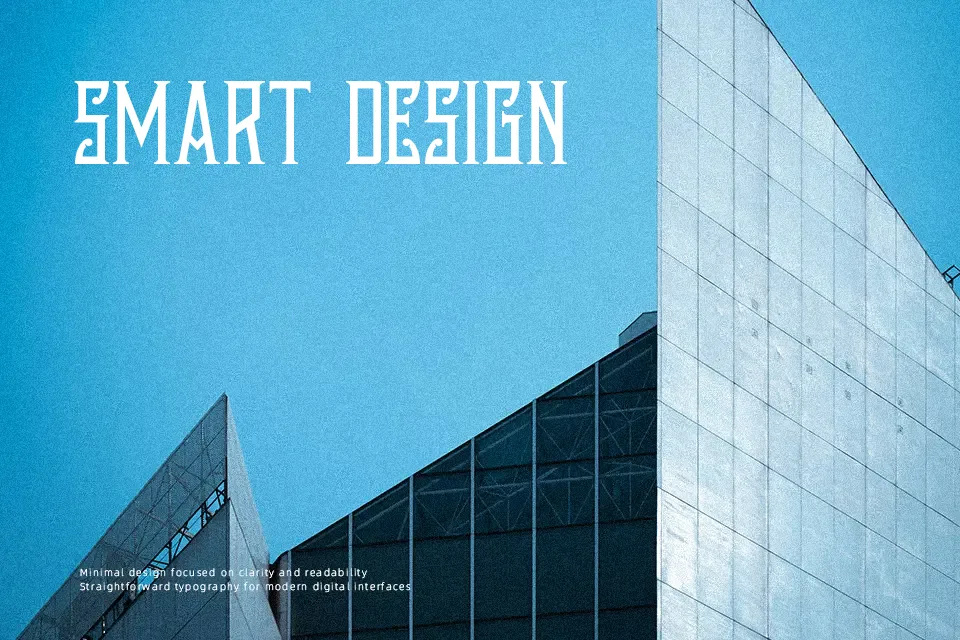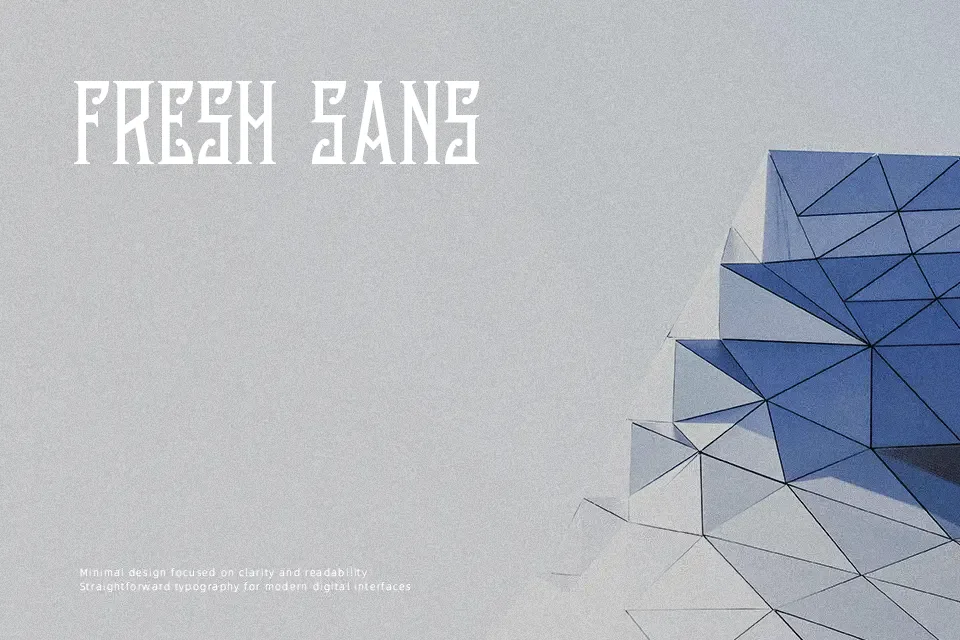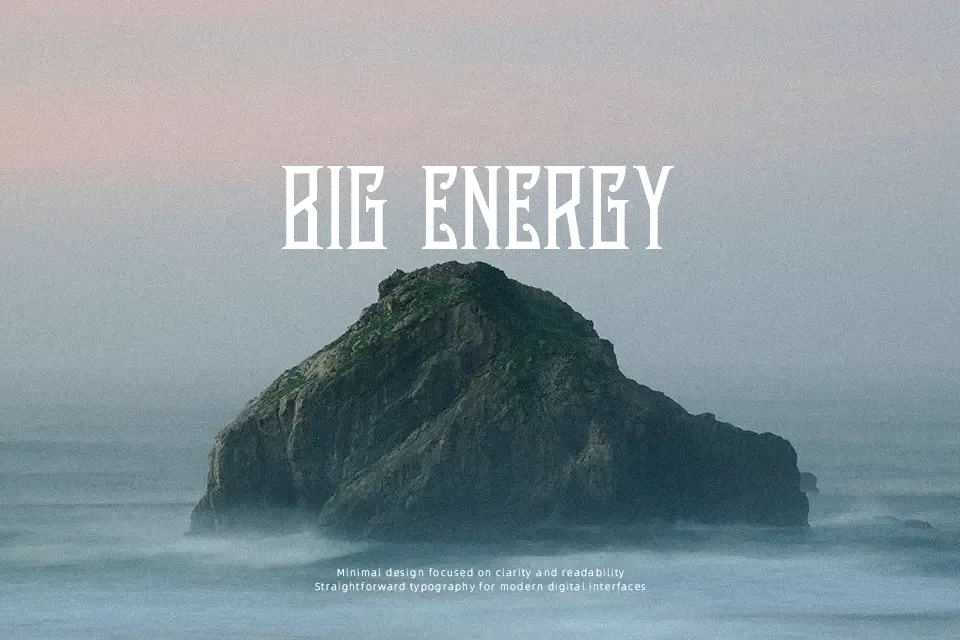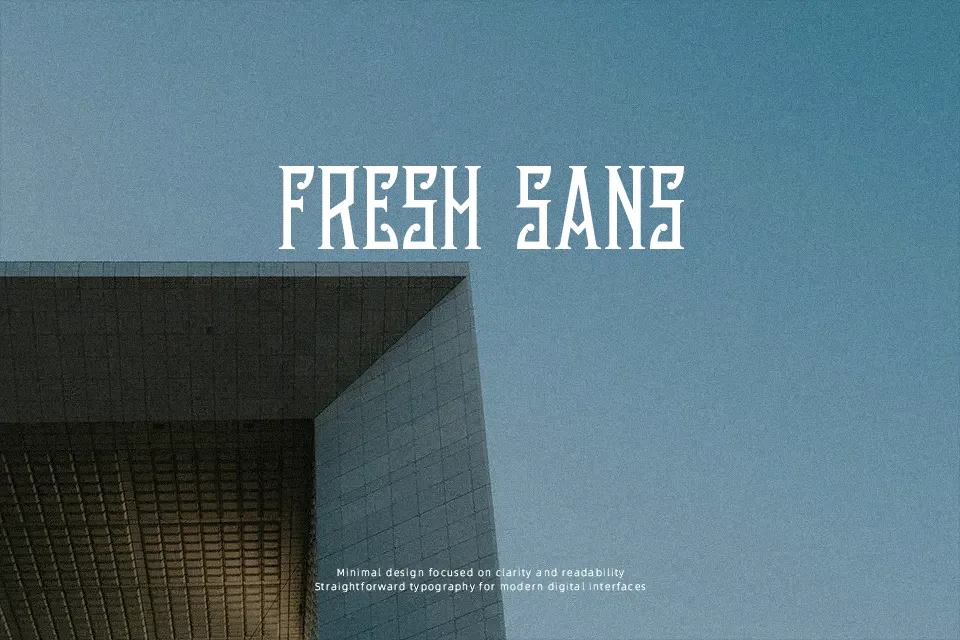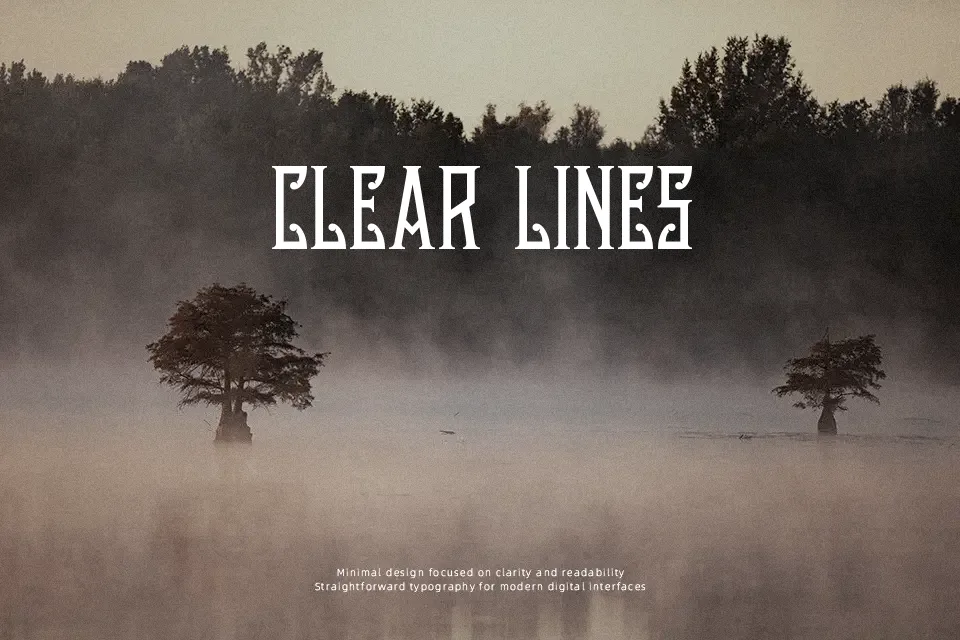
Austin Nichols Font
Designed by Pilaster Davy
The letterforms in Austin Nichols are tall and condensed, with high stroke contrast and decorative serifs that carry the character of hand-drawn advertising type. The uppercase letters dominate with a strong architectural presence, while the lowercase maintains the same ornamental rhythm throughout. That consistency makes it work well for short display text — whiskey or craft spirits packaging, vintage event posters, or gothic-styled brand headers all benefit from its period-correct tone. Where it struggles: set anything in running paragraphs and legibility degrades quickly. Likewise, at small sizes, the intricate serif details collapse and muddy the read. It’s a font that earns its place in headline roles, not utility ones — use it intentionally, in large, isolated display settings.
Best For:- Craft spirits or apothecary label headers
– Vintage-themed poster headlines
– Gothic or retro logo lettering
– Halloween or Victorian-era event branding
Not Ideal For:- Body text or long-form paragraphs
– Small-size applications (under 18pt)
– Clean, modern corporate identity systems
– Digital UI labels or navigation text
Perfect for branding, halloween, and headline, with a classic and condensed style.